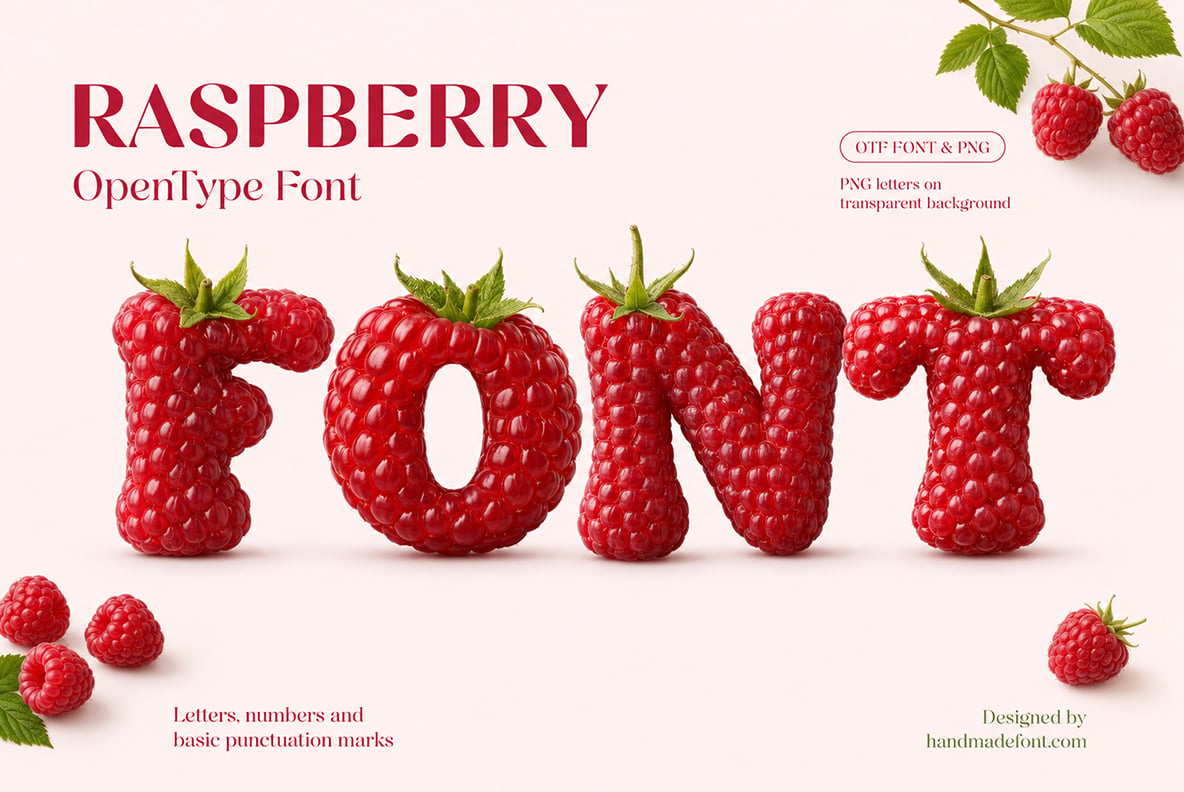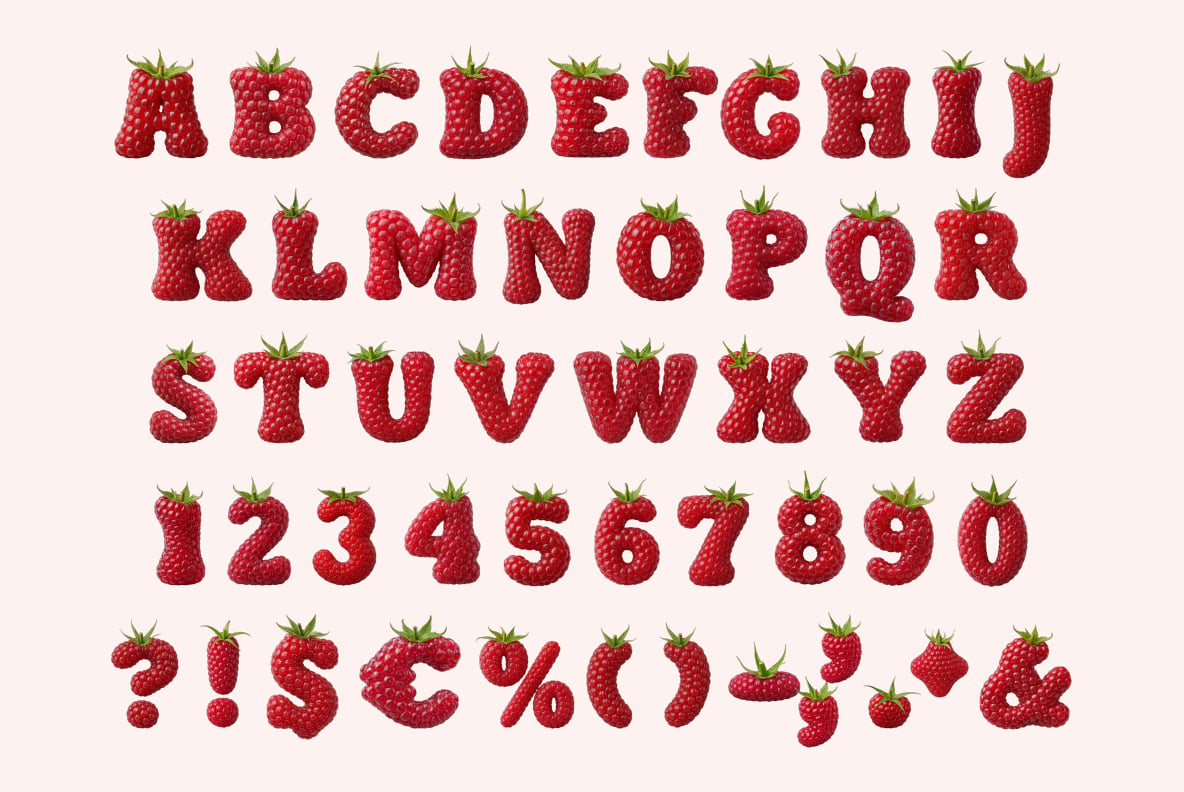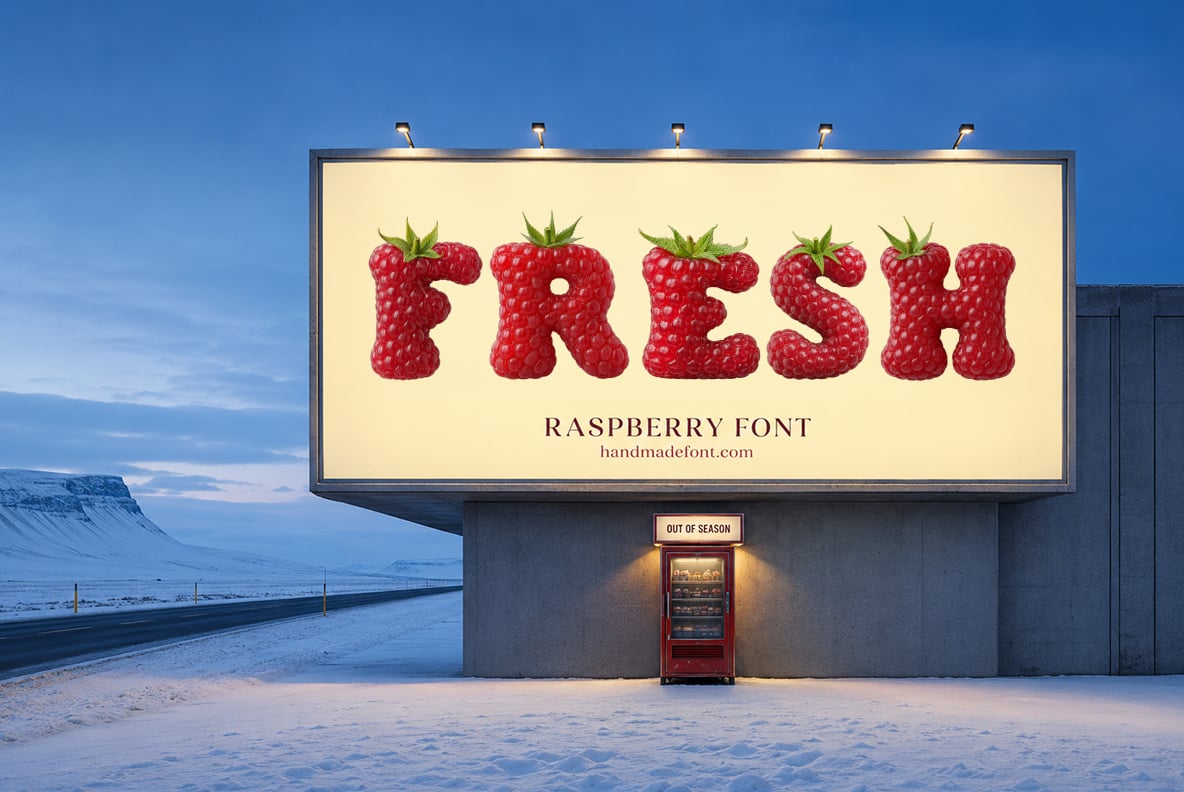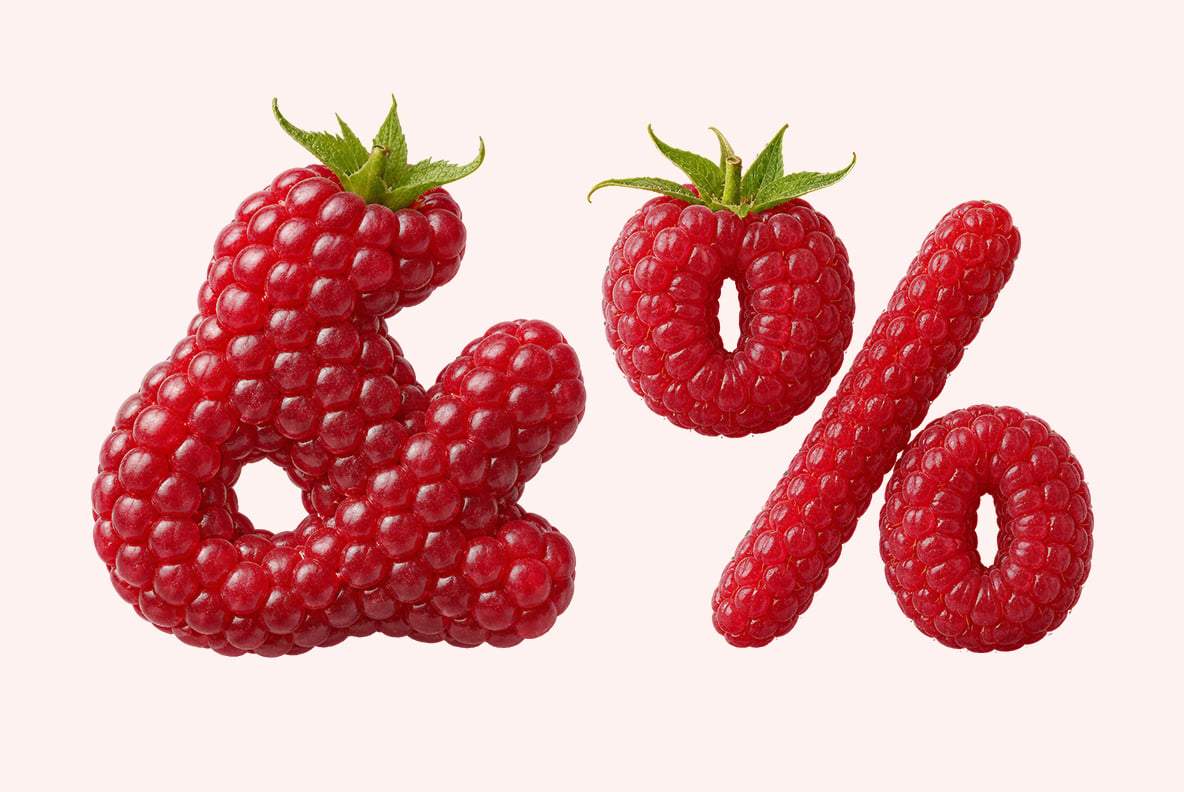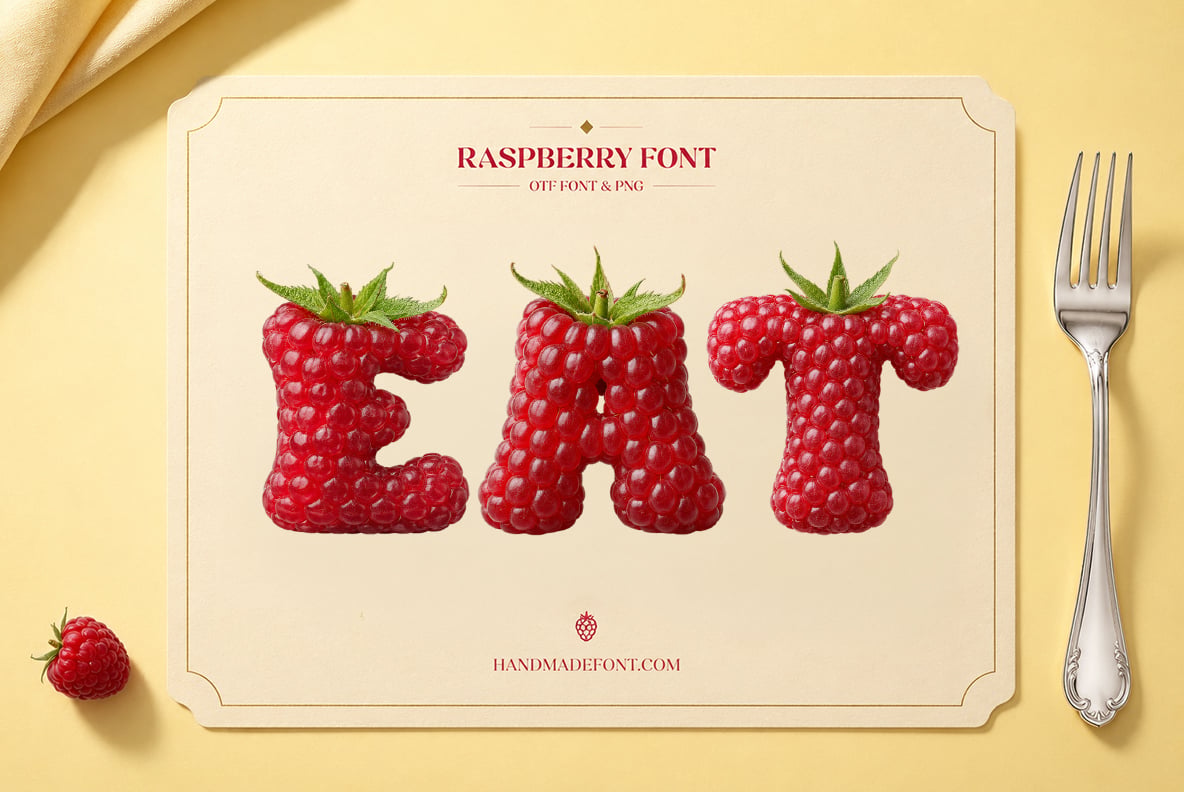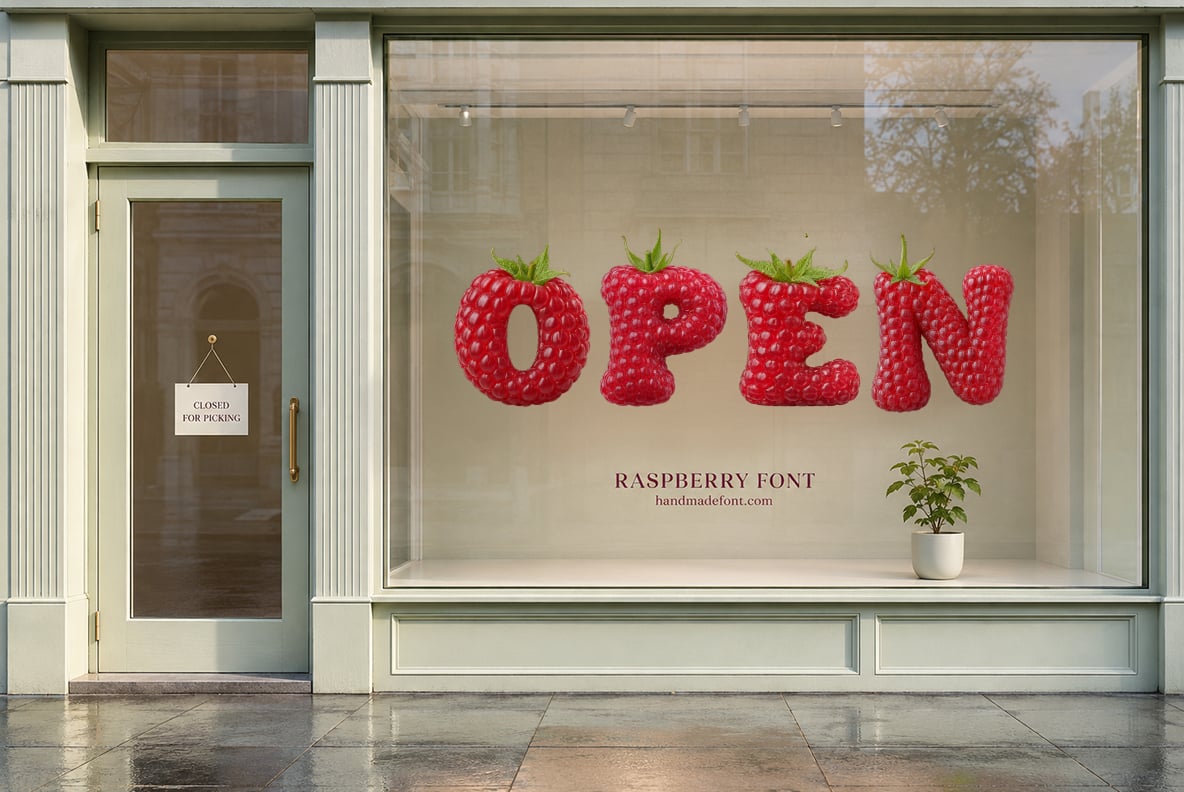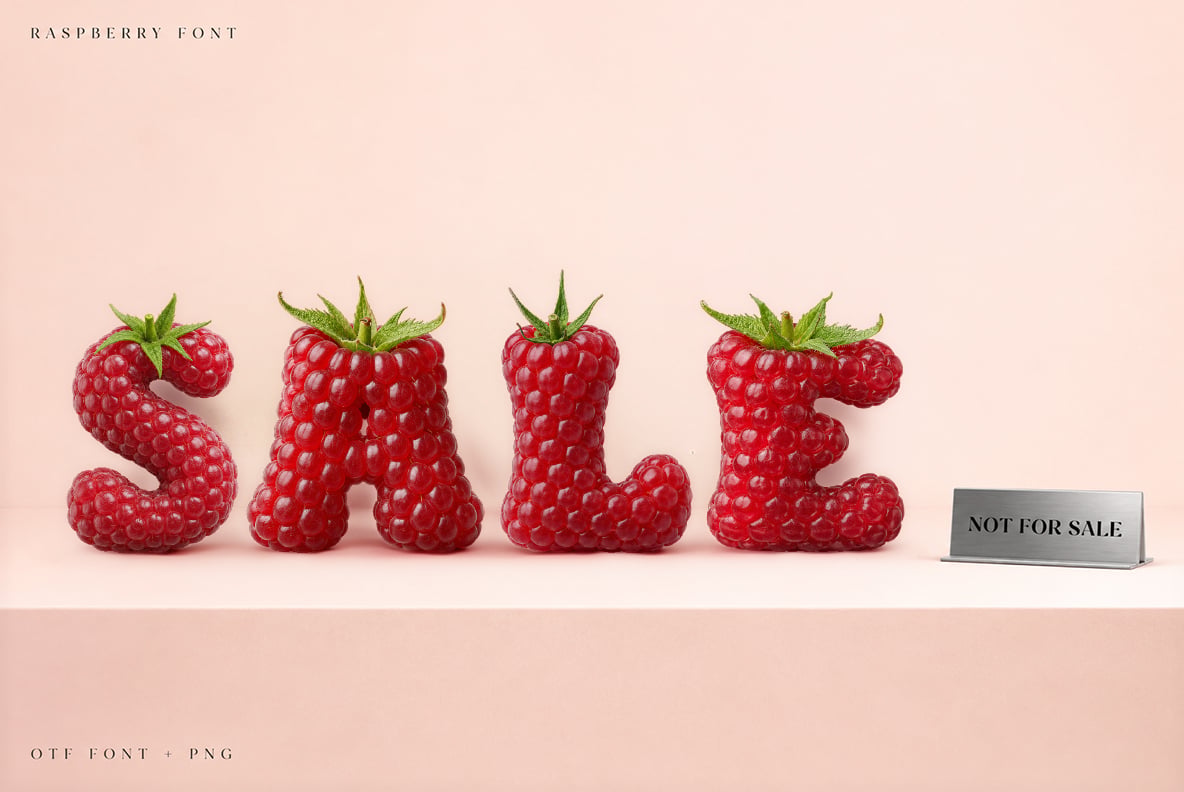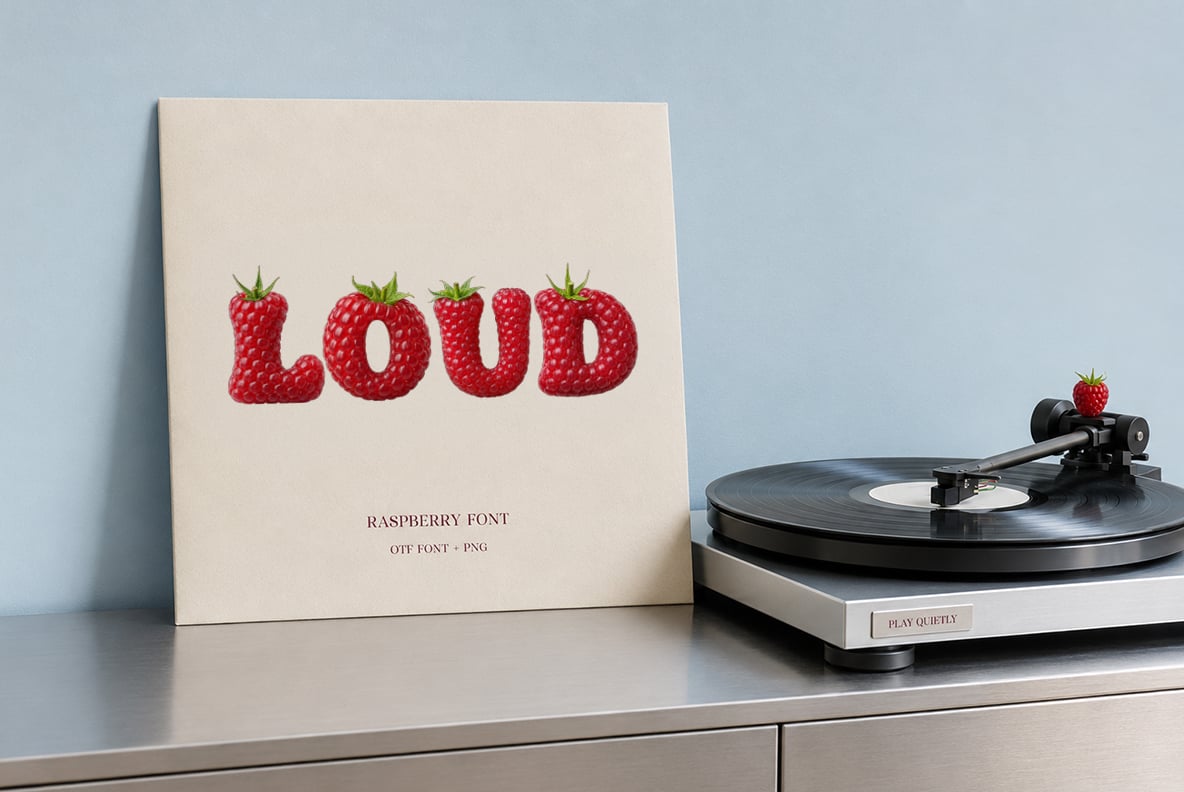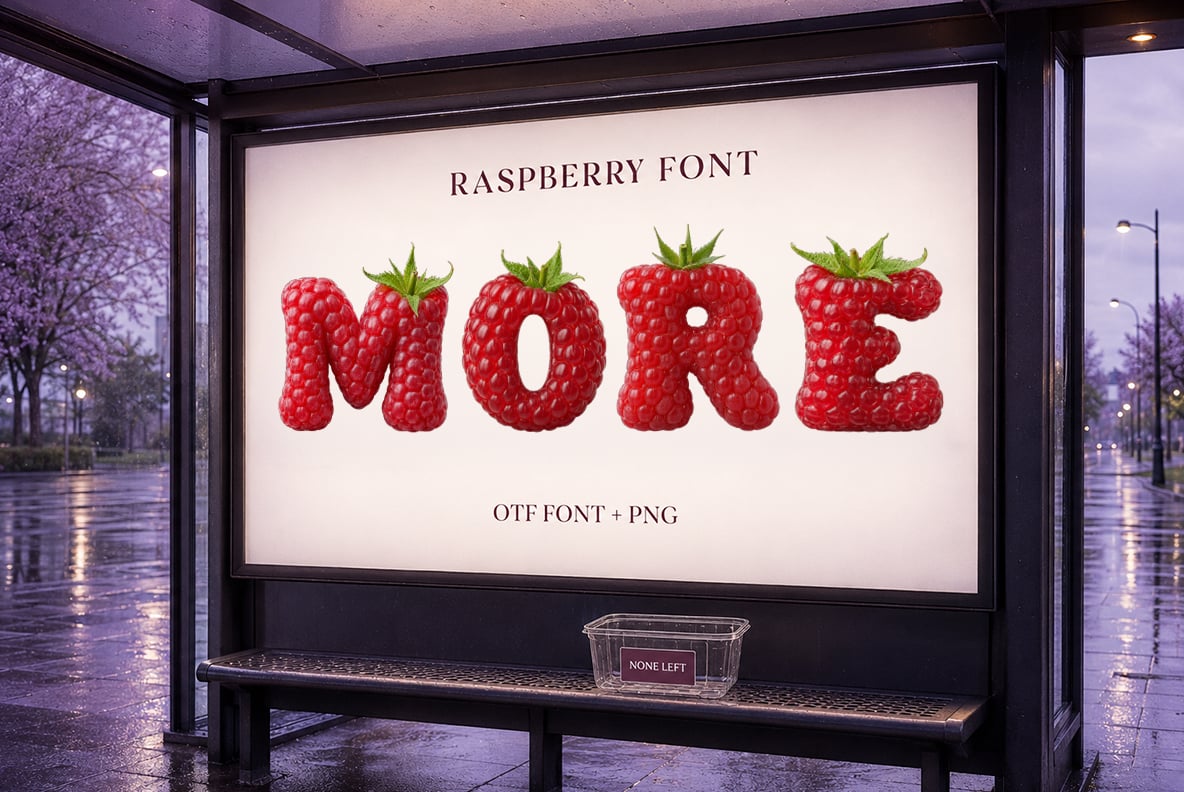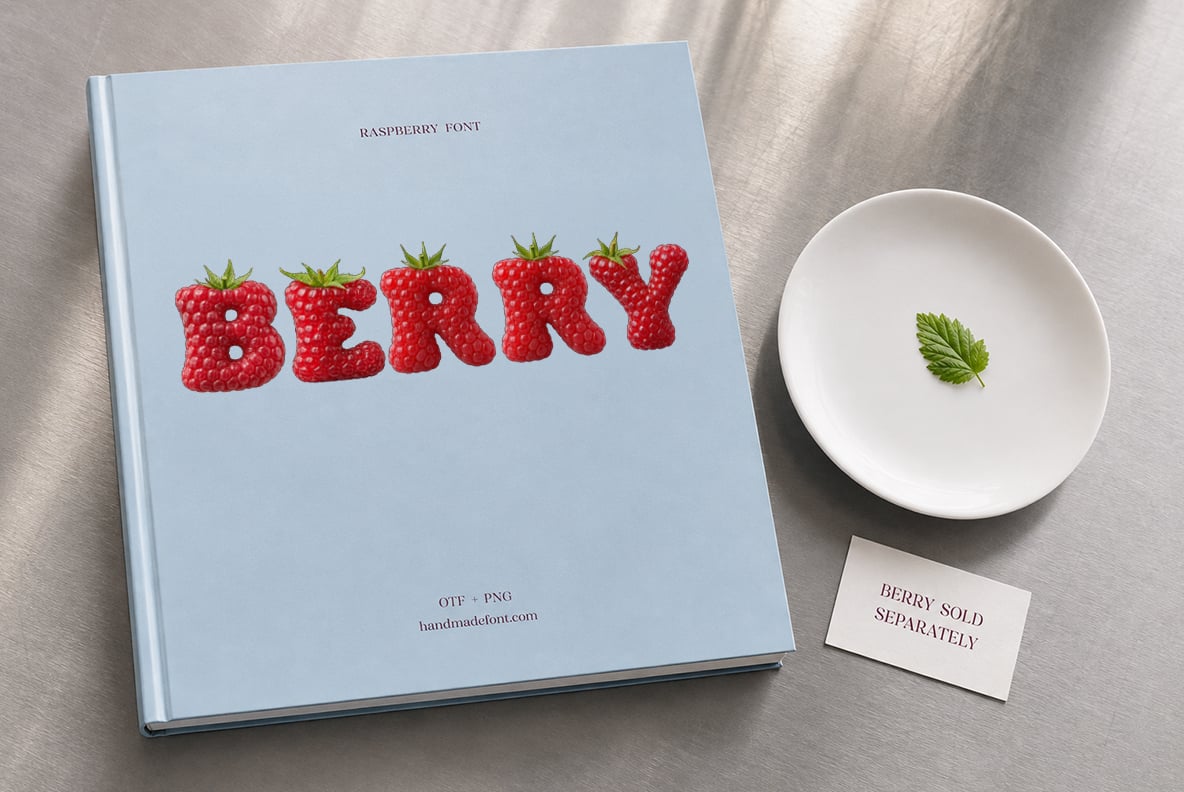
Raspberry Font
Raspberry Font turns every message into a juicy visual treat. Built from realistic raspberry forms, it gives headlines, logos, packaging, posters, menus, and social media graphics a fresh, playful personality. Each letter combines vivid red fruit texture with natural green details, creating typography that feels delicious, organic, and impossible to ignore. The package includes an easy-to-install OpenType OTF font with letters, numbers, and basic punctuation marks. You will also receive every character as an individual high-quality PNG file on a transparent background, perfect for flexible compositions, layered artwork, branding, advertising, food projects, and bold seasonal designs with unmistakable berry charm everywhere.